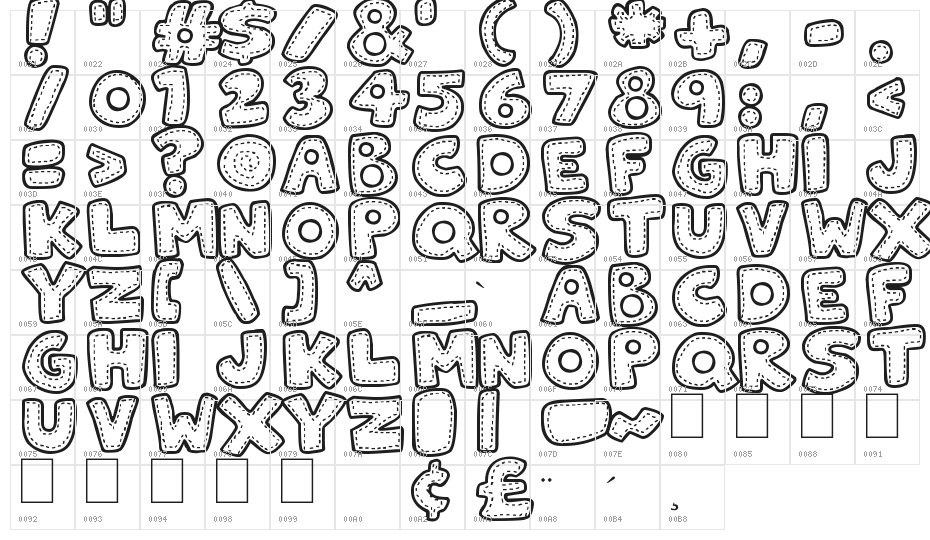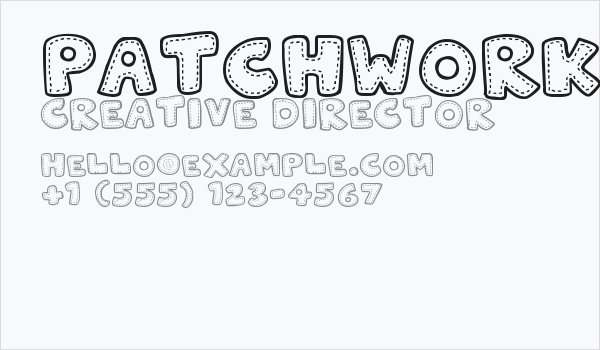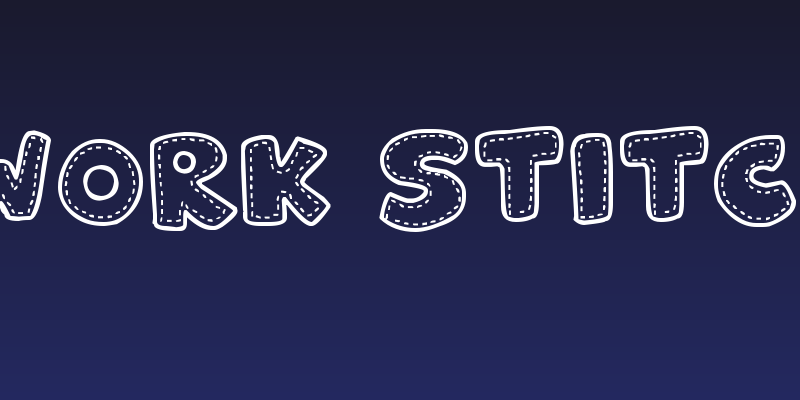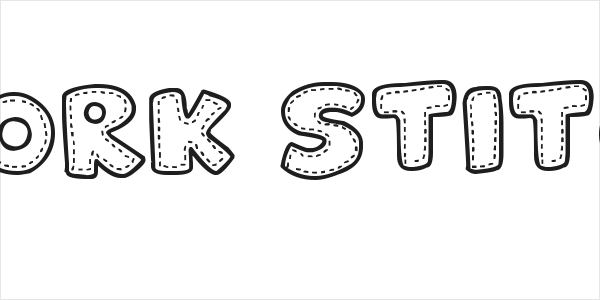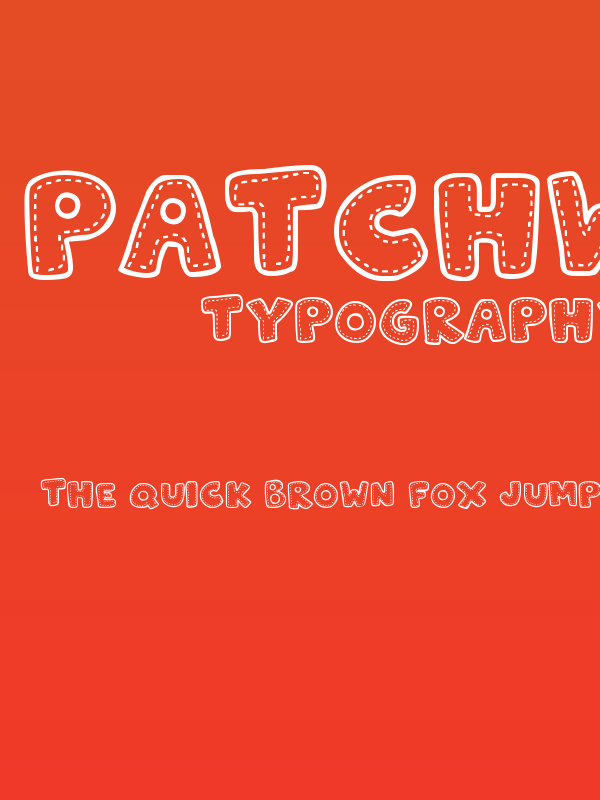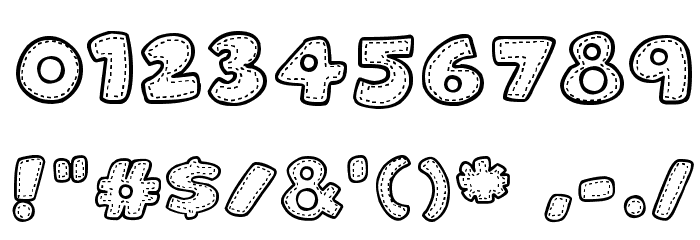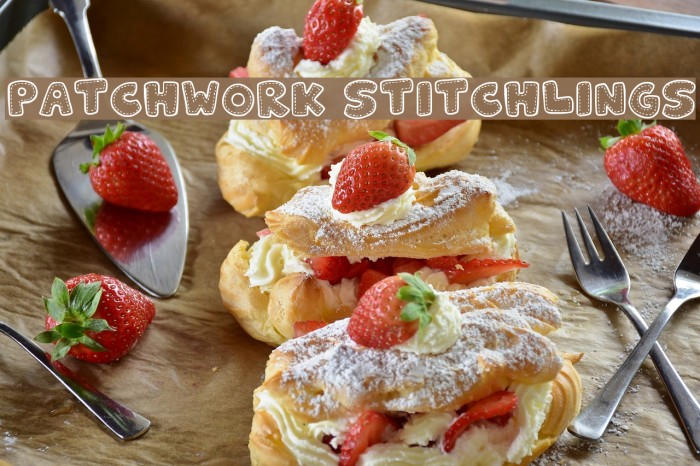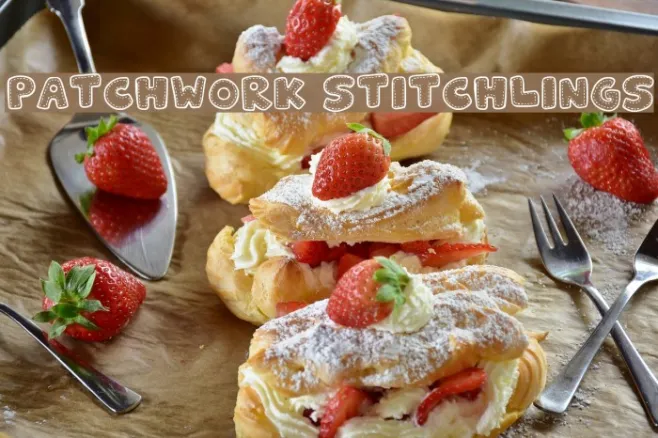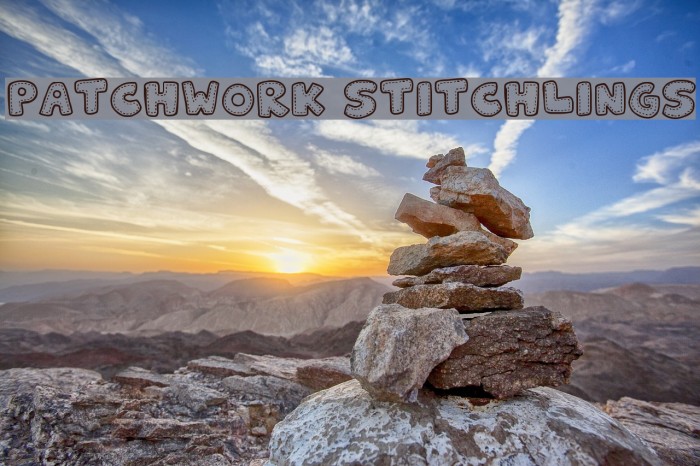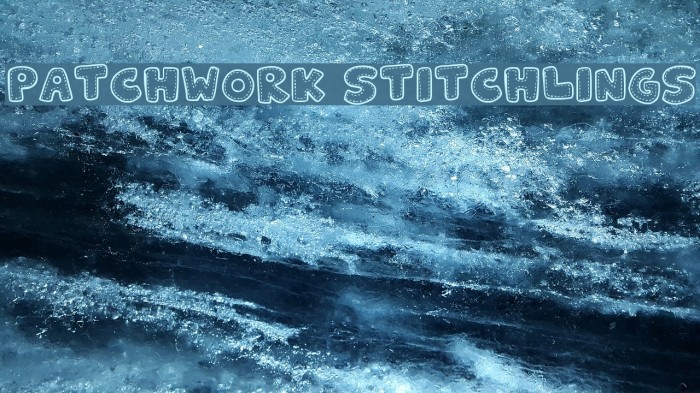
Patchwork Stitchlings Font
Patchwork Stitchlings Description
This playful and whimsical font features a hand-stitched appearance, reminiscent of patchwork quilting. Each character is outlined with a dotted line, giving the impression of being sewn onto fabric. The letters are bold and rounded, with a slightly irregular shape that adds to the handmade feel. The font is highly decorative, making it ideal for projects that require a touch of creativity and fun. Its unique style is perfect for children's books, craft projects, or any design that aims to convey warmth and charm.
| Proposed Projects | Ideal for children's books, craft projects, greeting cards, and playful branding. |